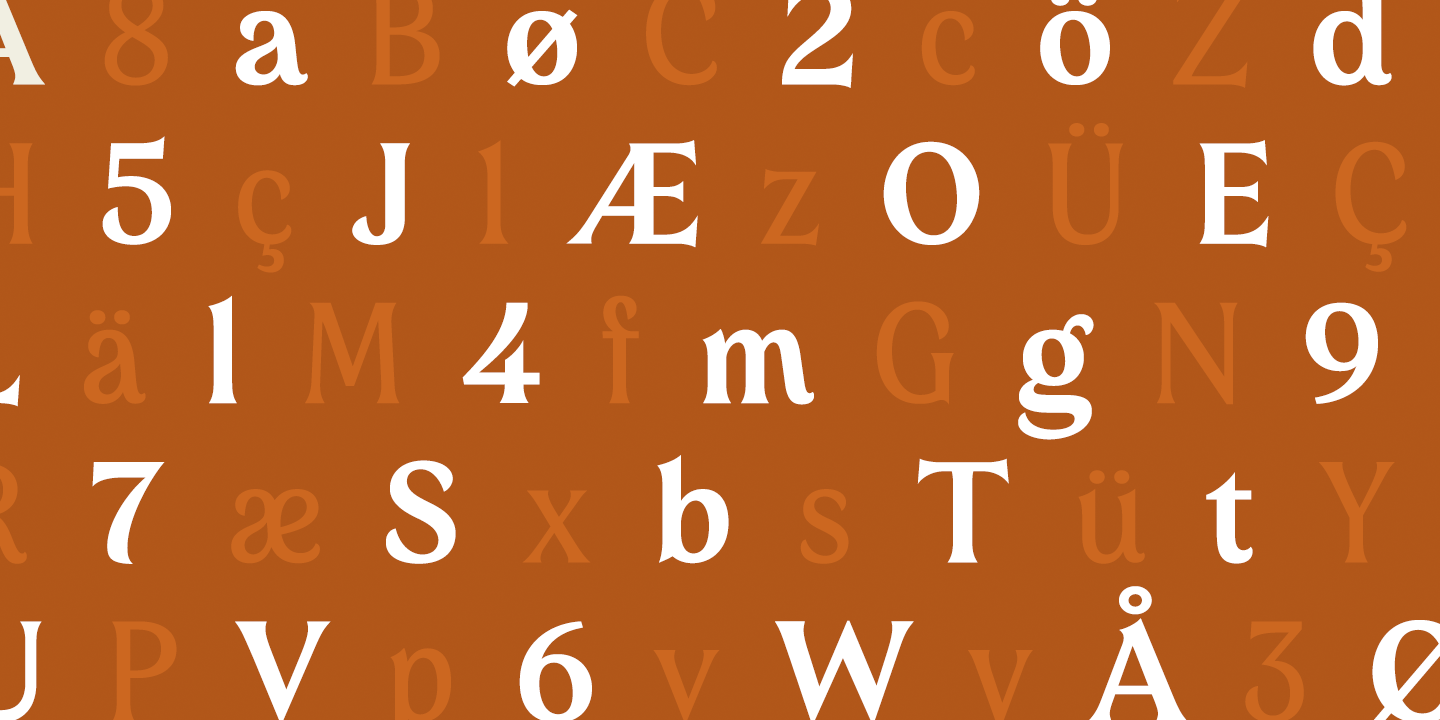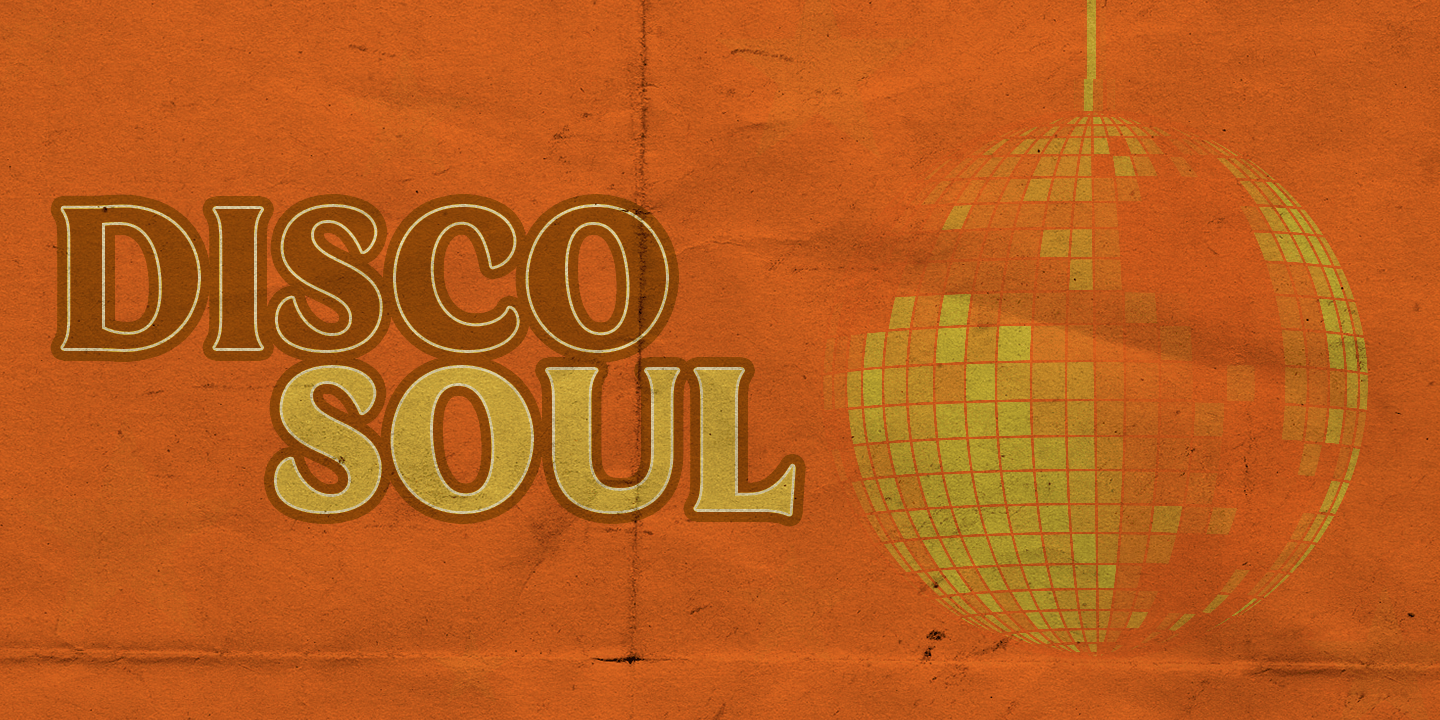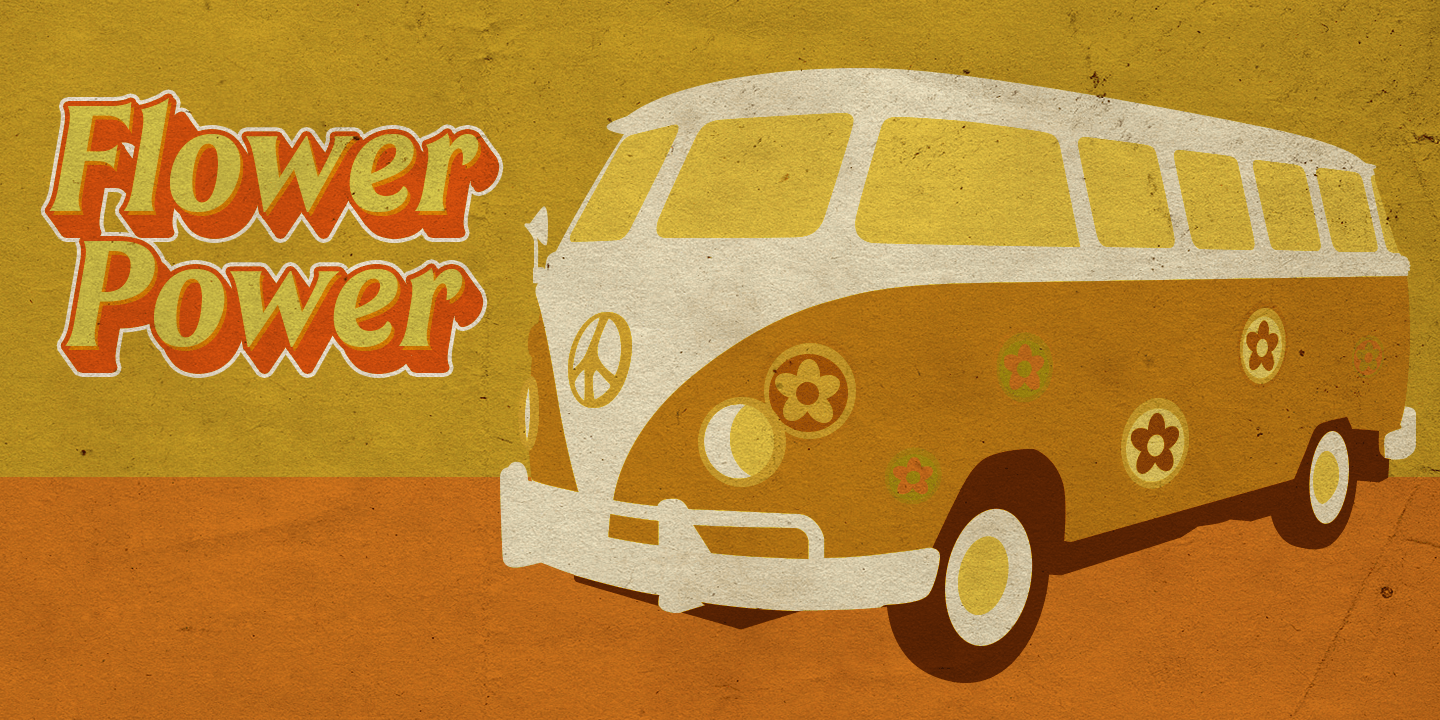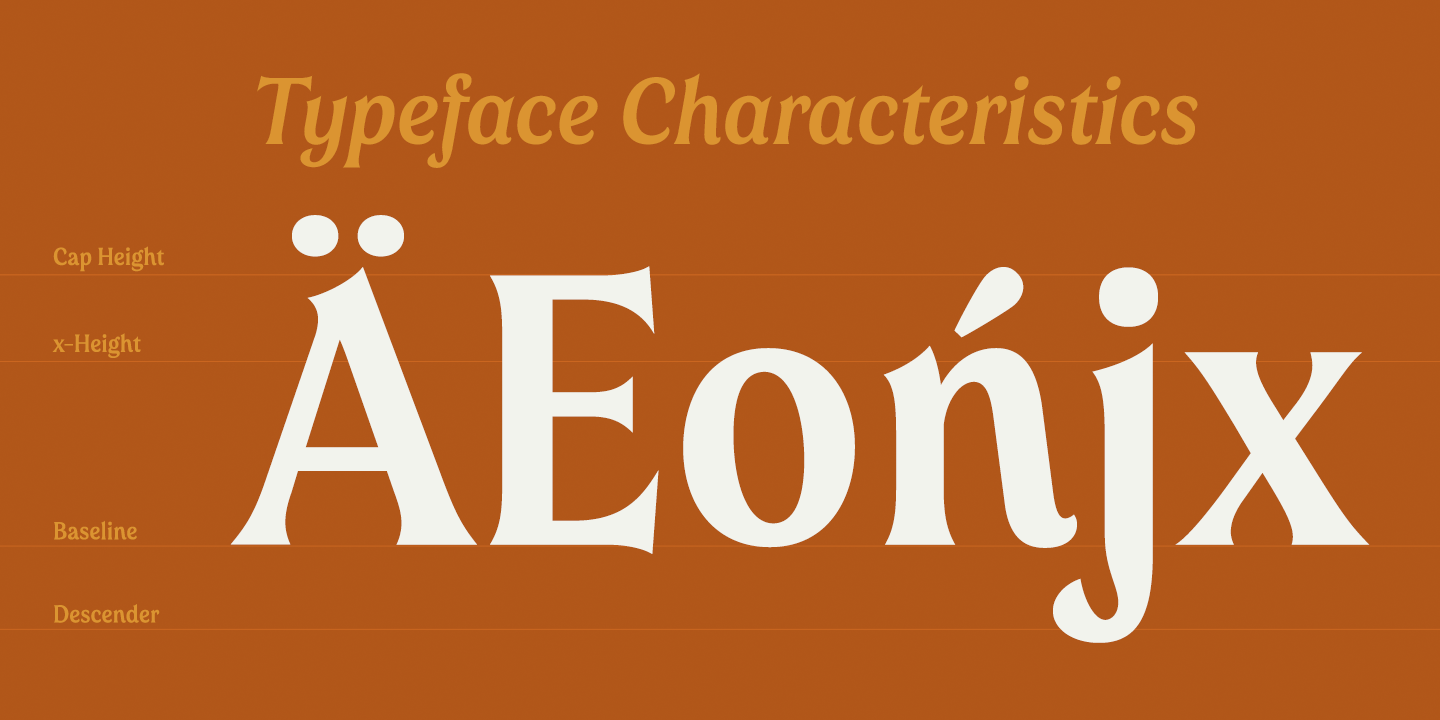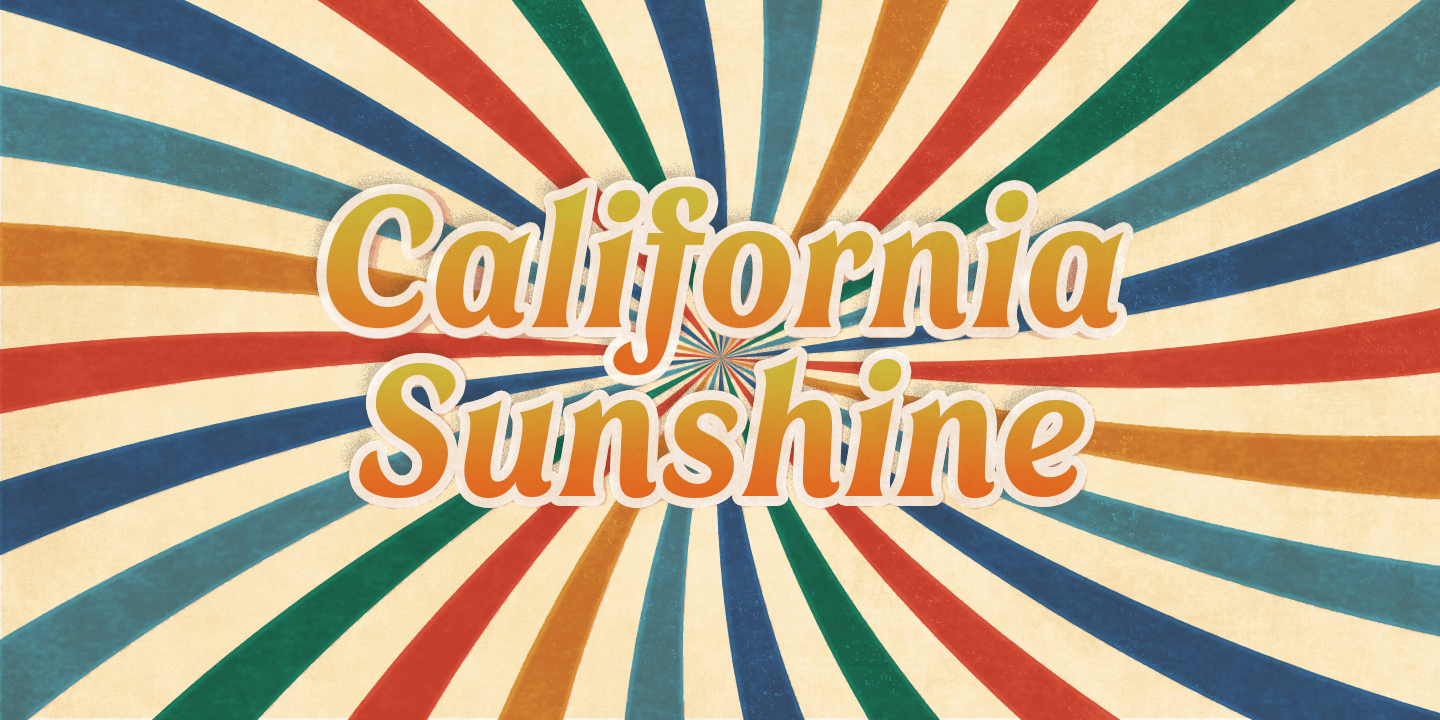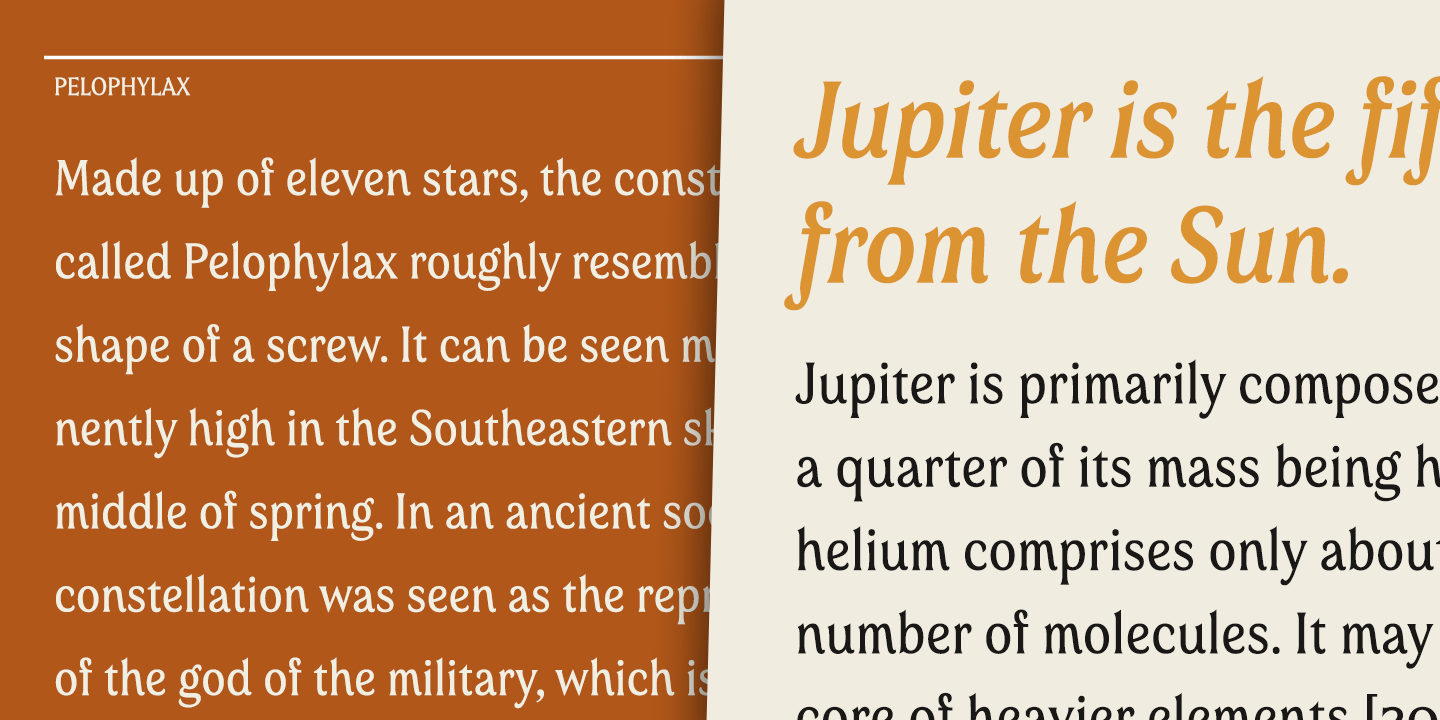
About Valeson
Feel the funk with the retro-inspired Valeson. This groovy mix of the ?70s and ?80s has an upbeat rhythm of its own that will make your project boogie. It\’s loads of fun with its swashy, calligraphic twist. Push it to the max with plenty of weights.…